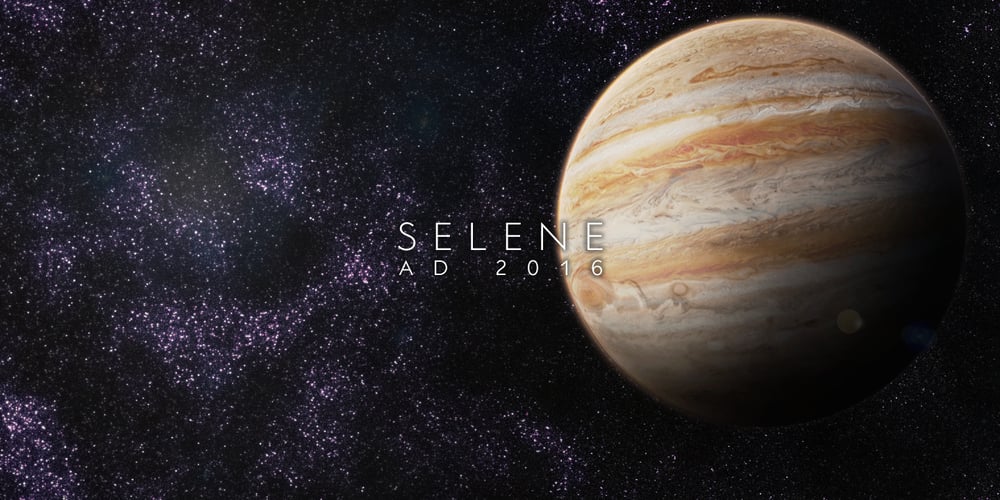
Selene Font Family was designed by Leonardo Di Lena and published by Flanker. Selene contains 14 styles and family package options. Selene is a sans-serif font family designed by Leonardo Di Lena. The font is based on geometric forms with as few improving legibility optical corrections as possible. If you need a minimalist font, technical but friendly and elegant, this is your choice. There are glyphs for all languages with Latin, Greek and Cyrillic alphabets, all the basic ligatures, old style numerals and alternates.